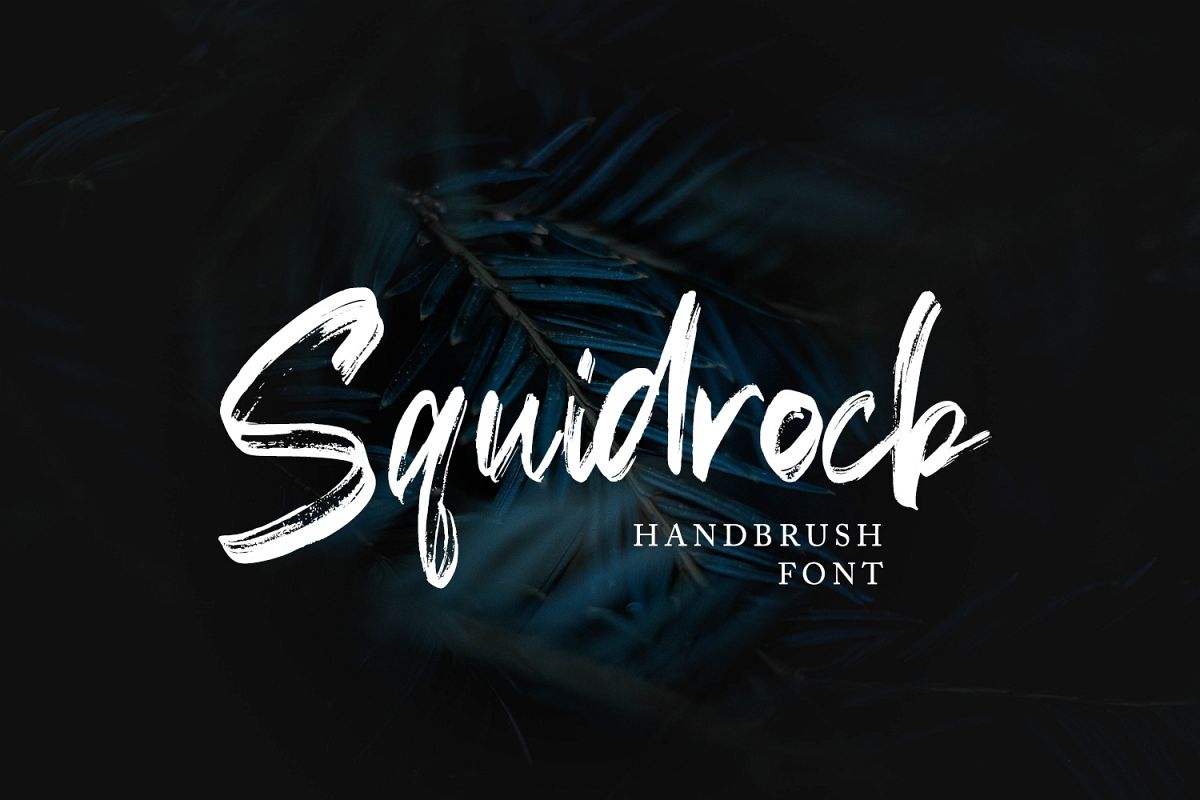
Squidrock - Handbrush Typeface
Squidrock
Squidrock Handbrush Script Font is a font with distinctive handwritten characters perfect for branding projects, logos, wedding designs, media posts, advertisements, product packaging, product designs, labels, photography, watermarks, invitations, stationery, and any project who need handwritten dishes.